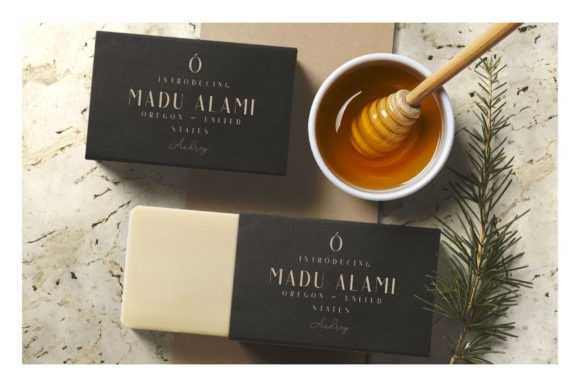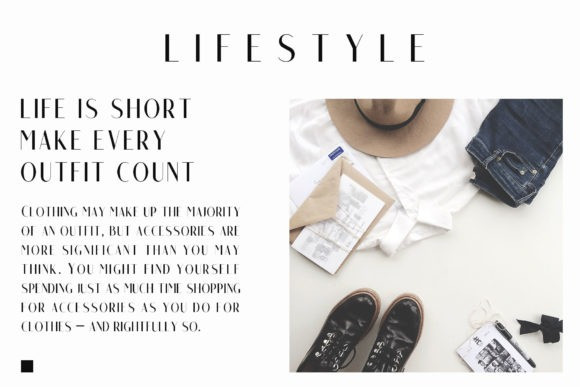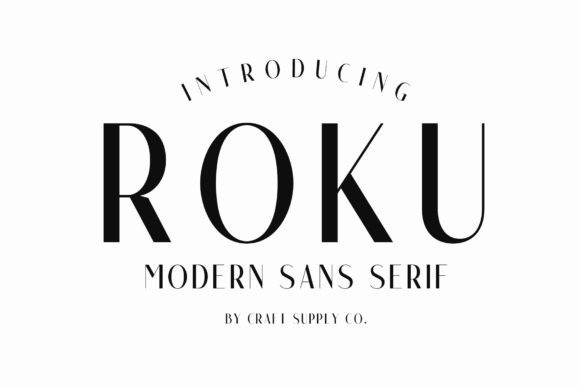
Roku Font
Roku Font is a modern serif family whose design refers us to the style of modern sans serif. The distinctive features are the relatively low contrast of strokes, the slightly squarish shapes of round characters and the emphasized business like simplicity.
It features an original stylistic set which, when turned on, adds features of typical pointed-pen sans serif to some of the lowercase characters. In addition, it has small capitals for Latin and as well as several interesting ligatures.
It has been crafted from scratch with a structural logic of its own: a fusion of pure geometry and optical balance. By combining a the regular and italic style, it is suitable for logos, greeting cards, quotes, posters, branding, name cards, stationary, design titles, blog headers, art quotes, typography, and more!